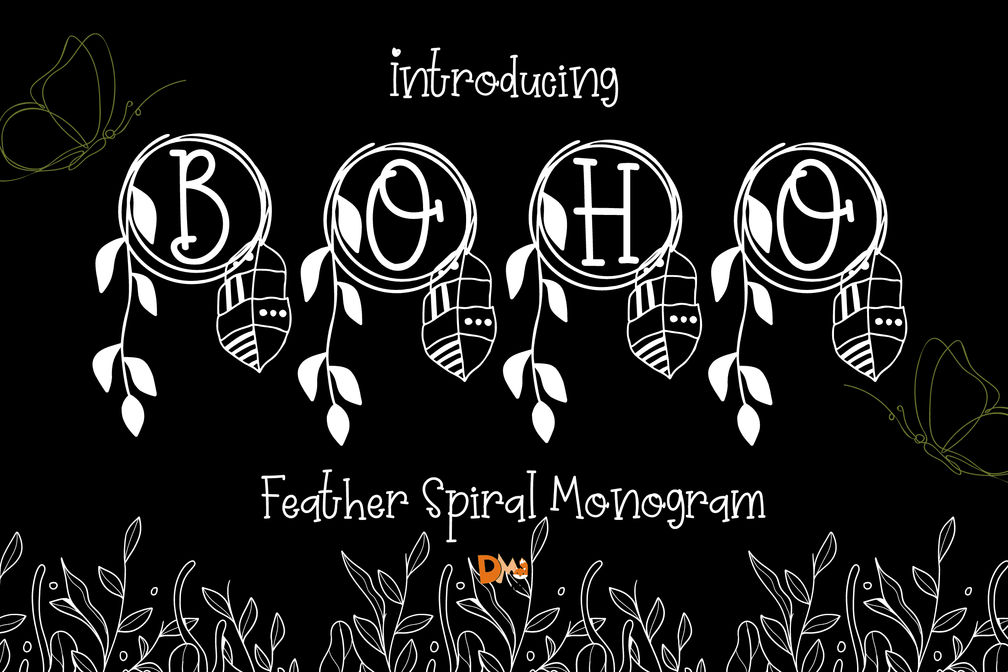
Feather Spiral Monogram
Feather Spiral Monogram – Elegant Serif Monogram Font with Spiral Feather Motifs
Feather Spiral Monogram is a refined serif monogram font featuring beautifully hand-drawn feather spirals that wrap around each uppercase letter. Designed to capture motion, lightness, and bohemian elegance, this font is perfect for wedding monograms, Cricut crafts, boutique branding, and personalized design projects that seek a touch of nature and grace.
Spiraling Feather Accents: Each letter is embraced by flowing feather details that add movement and artistry.
Classic Serif Structure: Balanced serif forms maintain elegance, readability, and timeless appeal.
Symmetrical Composition: Ideal for monogram logos, wedding initials, and decorative layouts.
Ideal For: Boho wedding invitations, Cricut crafts, boutique packaging, feminine logos, gift tags, and nature-themed branding.